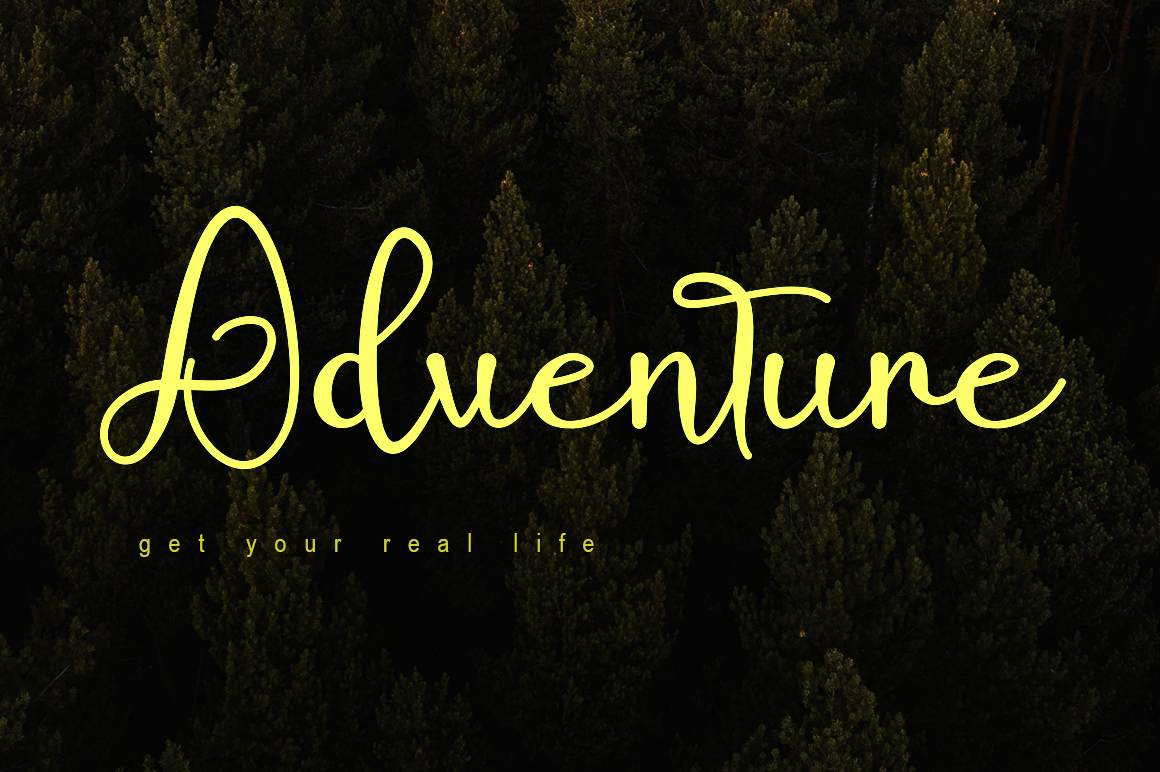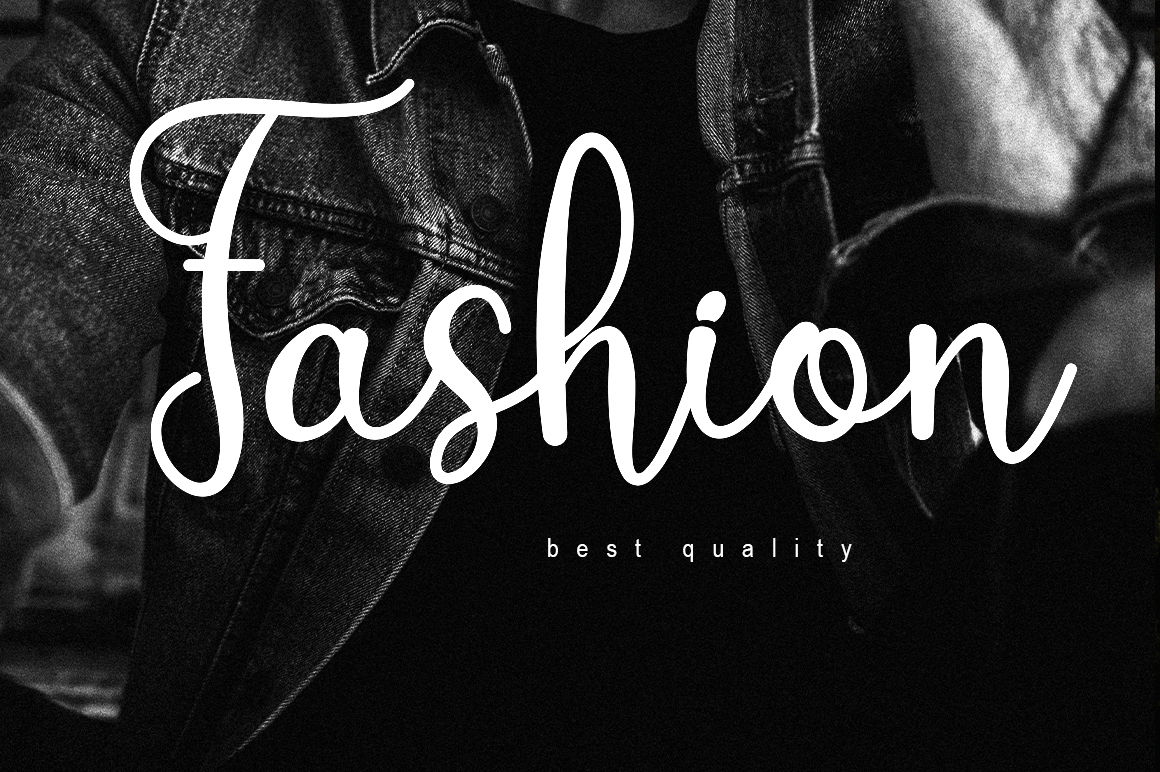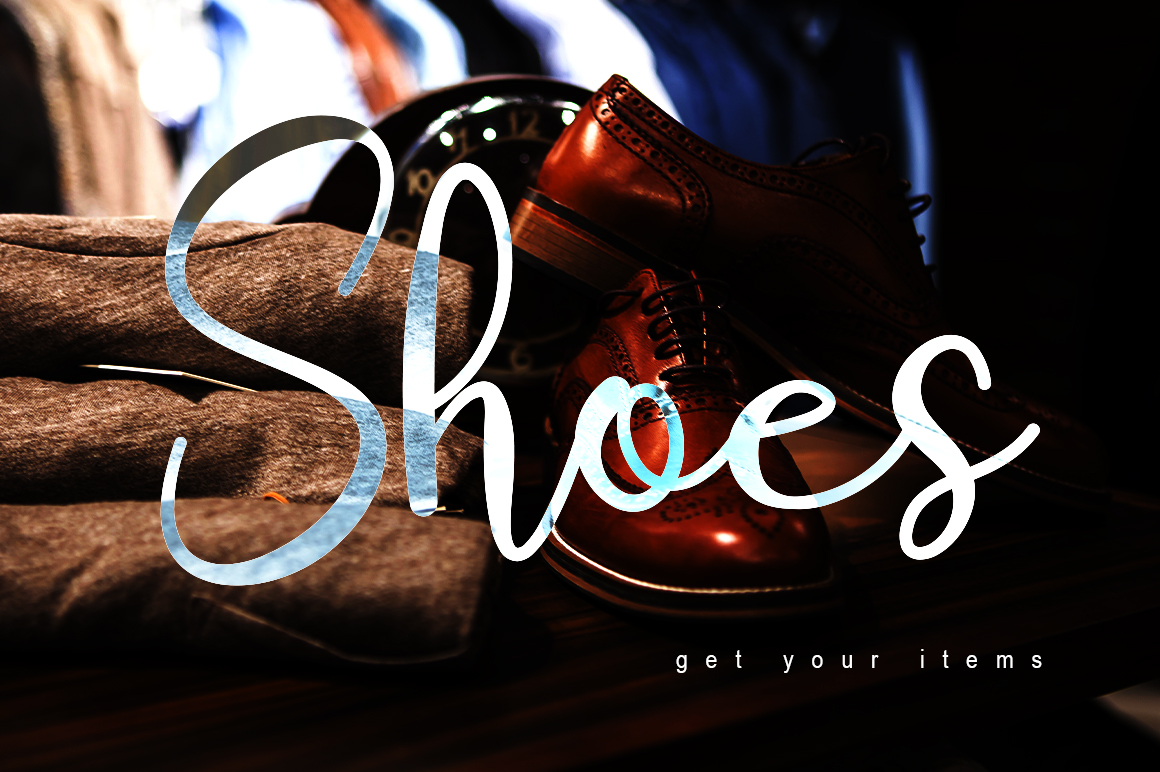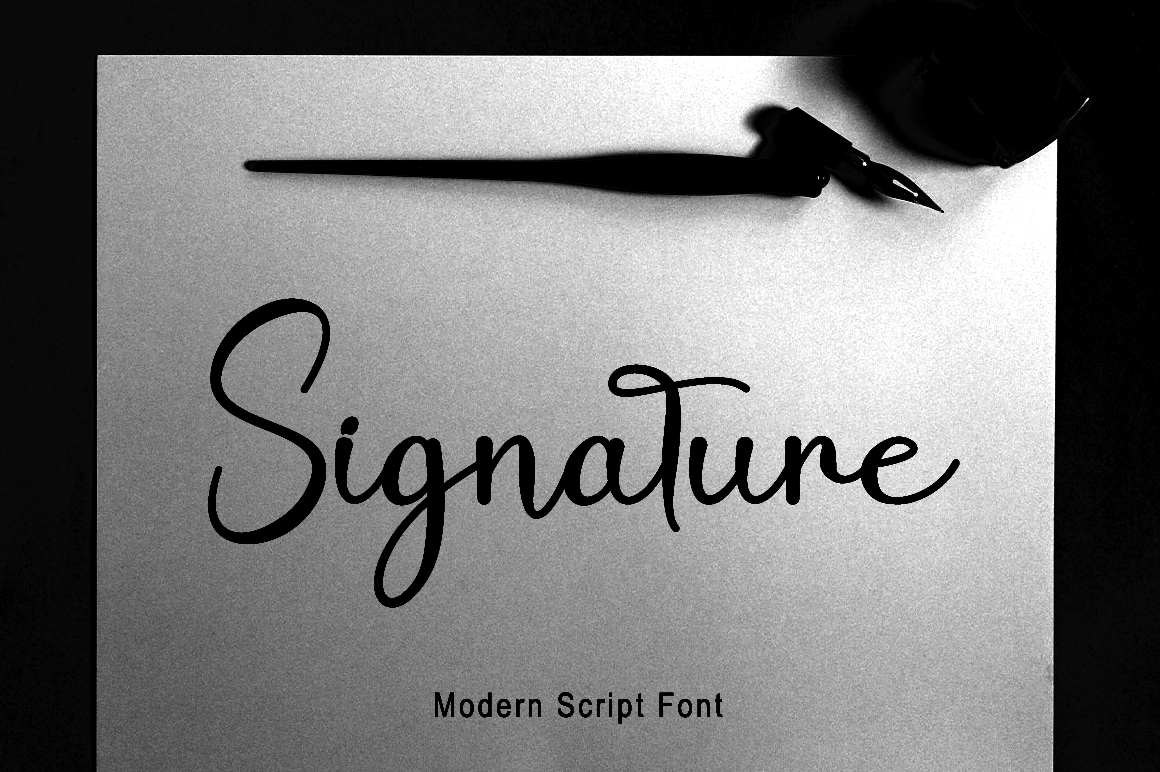
Orelly Script Font
This is a romantic and modern script font with a strong poetic feel. The characters flow beautifully into each other and create an authentic look, perfect for your projects that need a personal note.